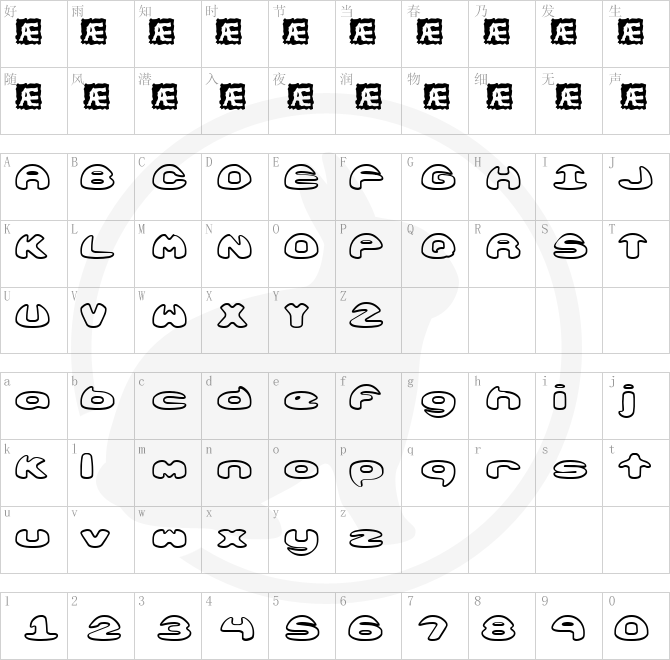
- Font Name:Obloquy Outline (BRK)
Obloquy-Outline-BRK-.ttf is a very beautiful artistic font, Obloquy-Outline-BRK-.ttf is widely used in the design and printing of various books and pictures,Obloquy-Outline-BRK-.ttf has a strong visual impact,Obloquy-Outline-BRK-.ttf is a commonly used font in newspapers, magazines and books, and is used in posters, e-commerce Poster design, store design, logo design, font design and other fields.Obloquy-Outline-BRK-.